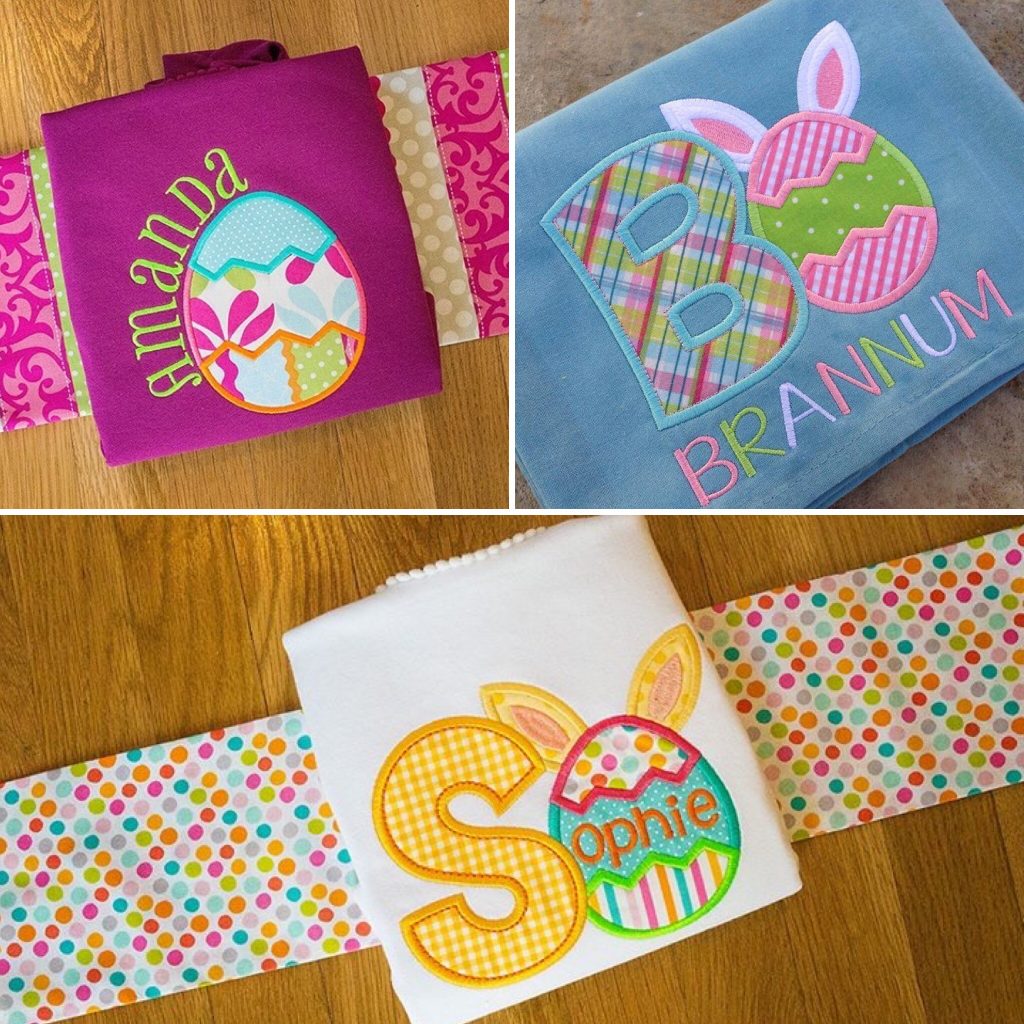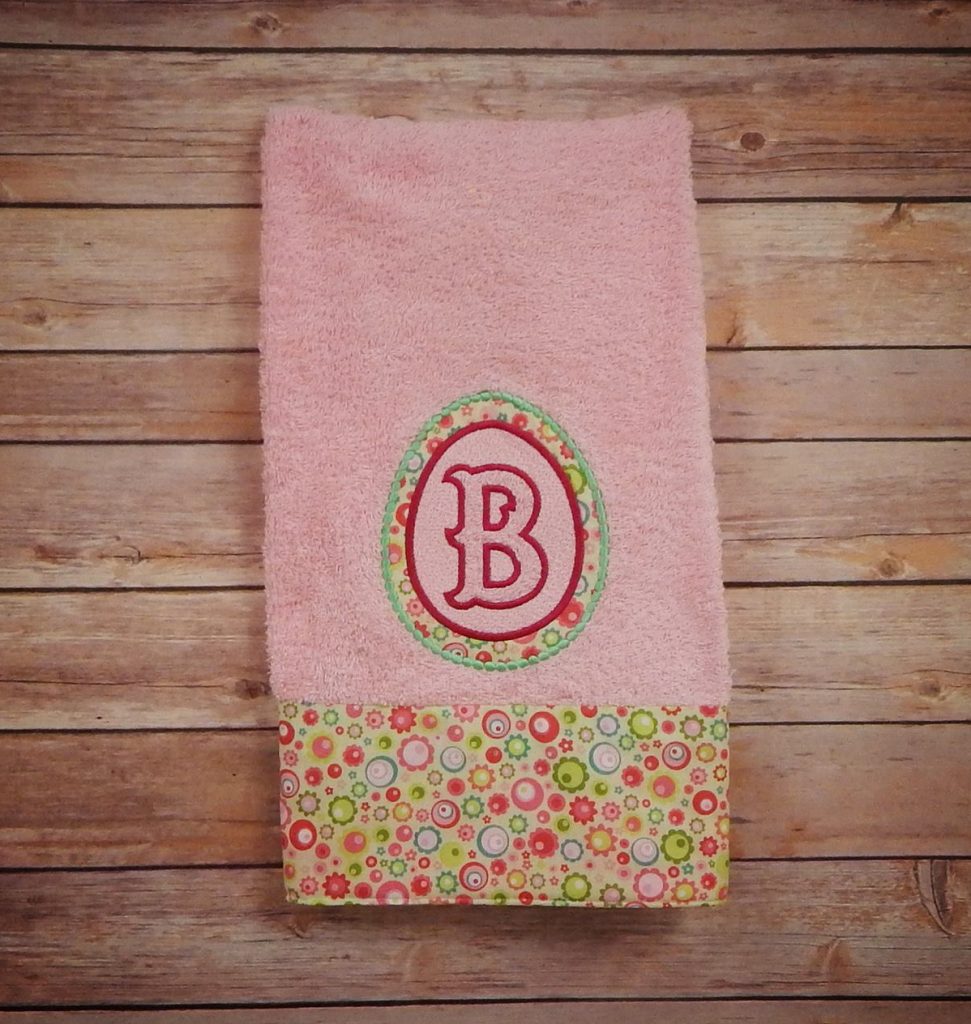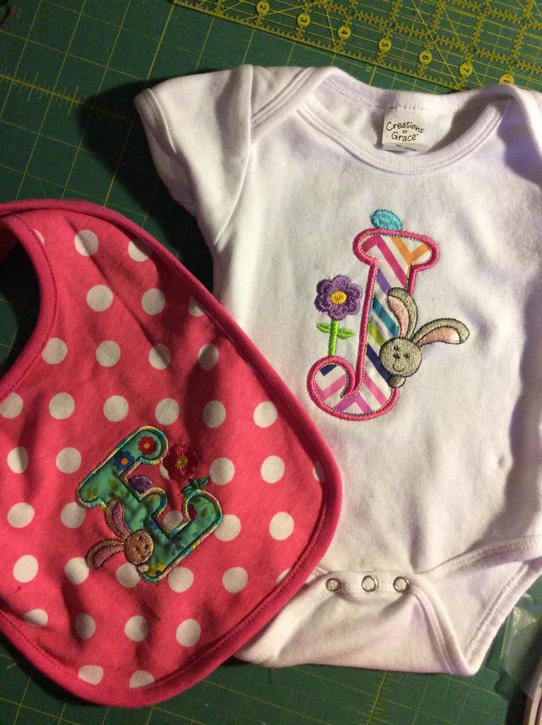
Easter Eggs, Easter Bunnies, and Easter Monograms! We have so many great Easter fonts and monograms to share with you! In this blog we will be featuring - Embossed Easter Egg Monogram Alphabet, Easter Bunny Egg Applique Alphabet, Egg Hunt Easter Alphabet Applique.
A simple, adorable Easter egg shaped embossed monogram for your Spring project!
There are several ways to stitch out this monogram.
The frame is designed that it can be used as an applique. You can see the applique version and non-applique version in the first photo in this blog!
There are also plenty of color stops included so you can customize the design to your choosing.
Perfect for your Easter projects! This sweet applique alphabet with Easter egg and bunny ears can be used alone or with our coordinating "The Last Time" embroidery font to spell out a word or name!
You can also JUST use the egg or egg and ears! (the letter “F” has the complete egg version)
There are so many fun ways to use this monogram.. It's a MUST have!
Here is a sweet alphabet for your Easter projects! Each applique letter includes a bunny, an Easter egg, and a flower!
This project was sent in, and we had to share! What an adorable "Baby's First Easter" gift!